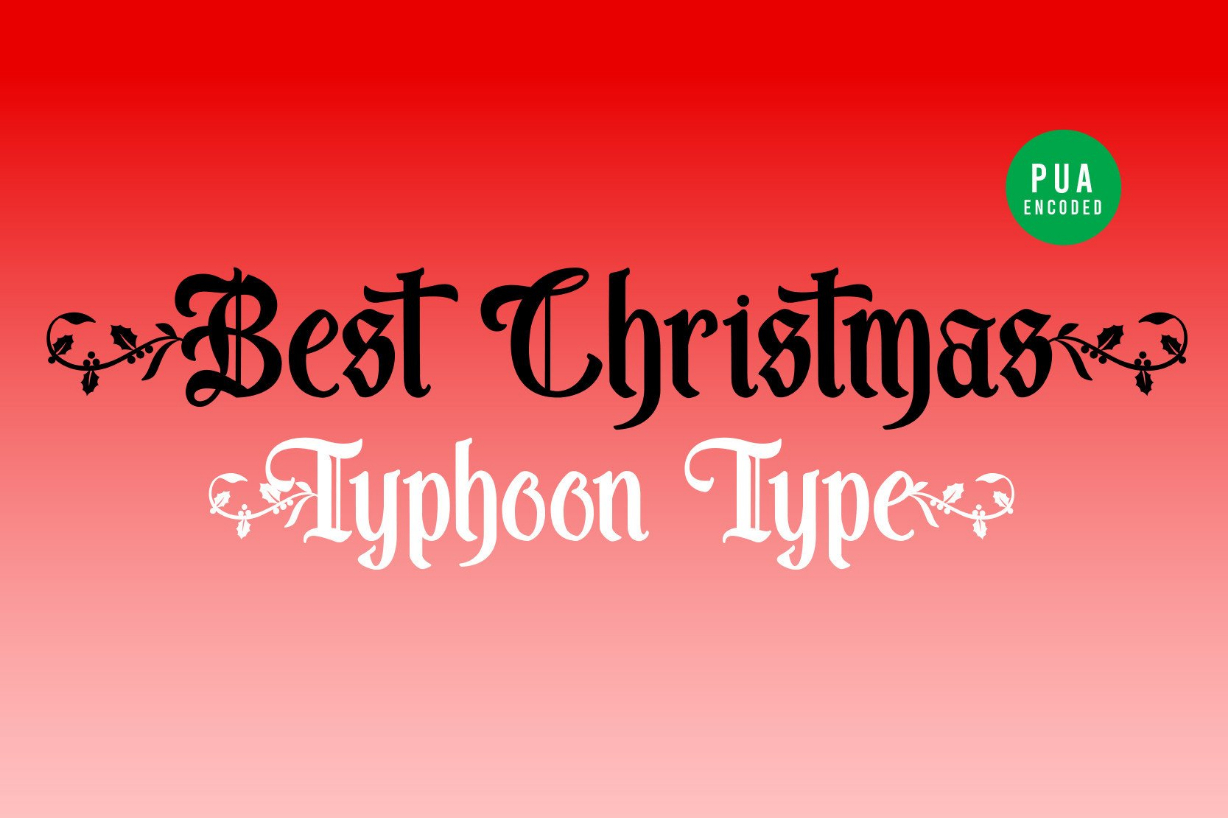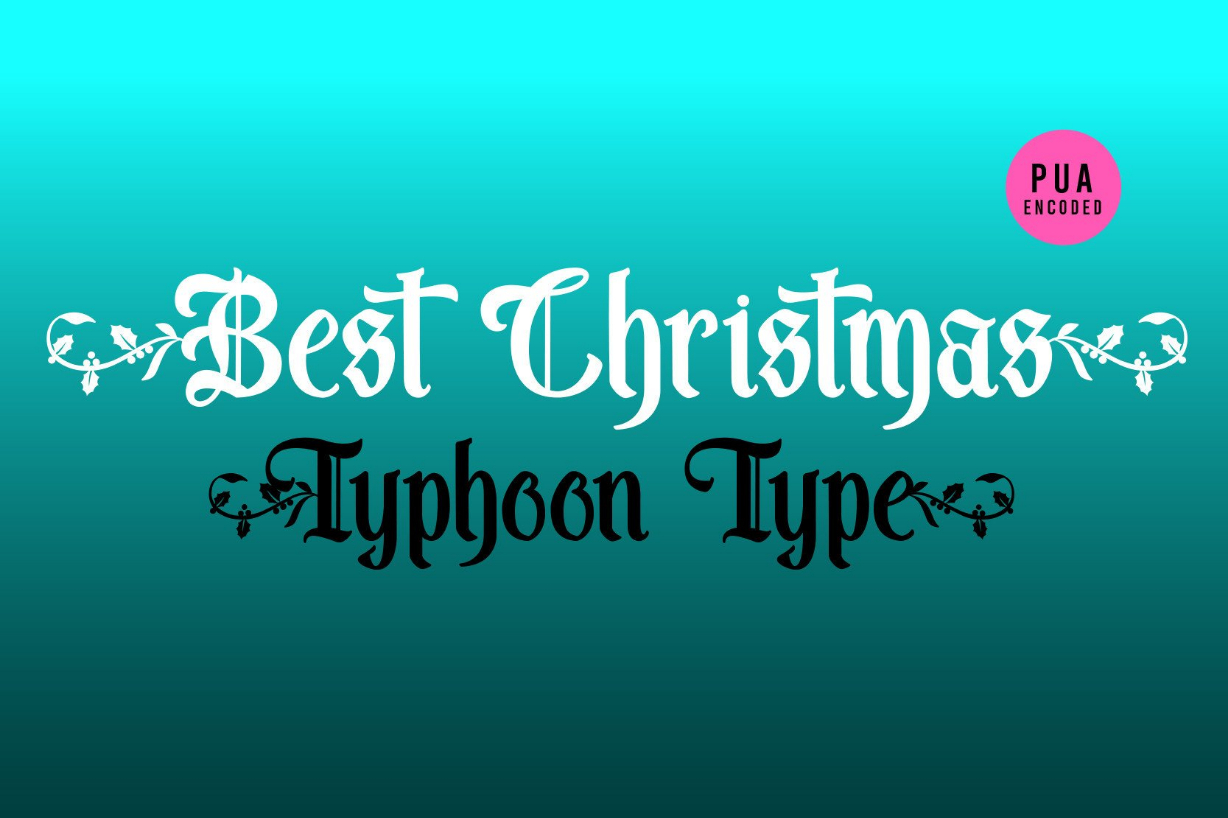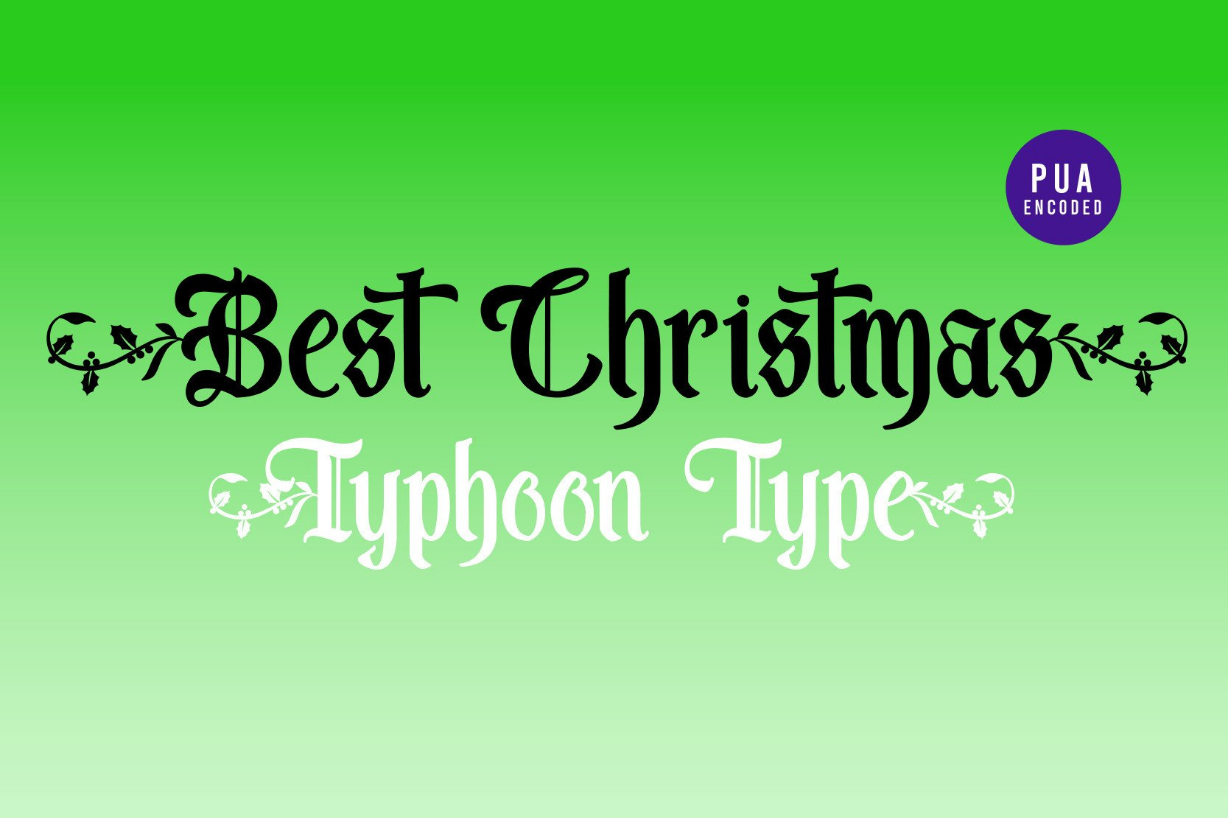
About Best Christmas Font
Best Christmas is a friendly, fresh, rich, and elegant blackletter font. It is ideal for holiday-themed greeting cards and for any crafting project that requires a cute touch.